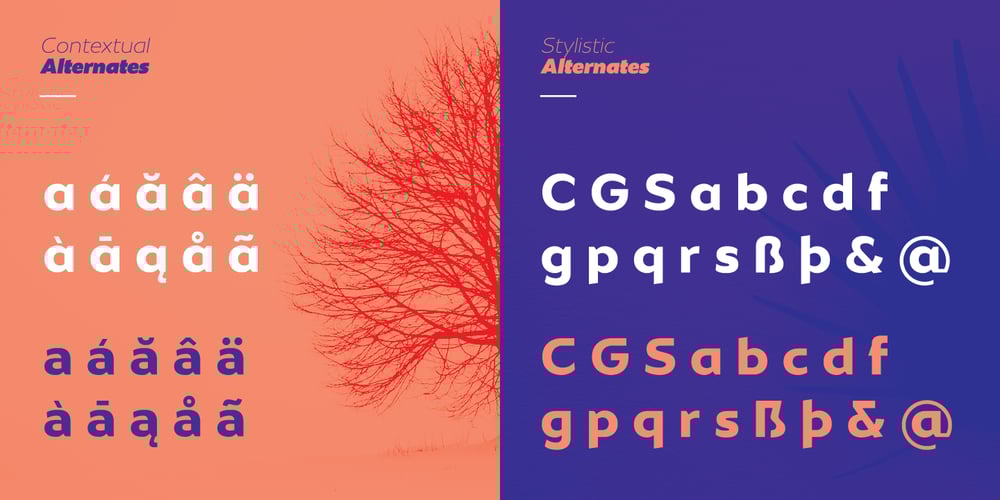
Masny Font Family was designed by Dusan Jelesijevic and published by Tour De Force. Masny contains 22 styles and family package options. Masny is a modern sans serif family that comes in 22 weights. It contains Stylistic and Contextual Alternates. Masny is intended for use in every situation, from editorial design to branding.